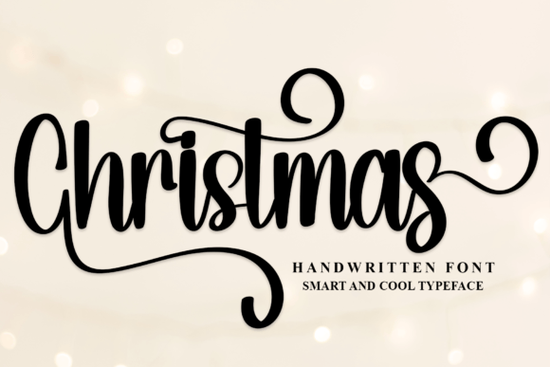
The Christmas Font is a stylish handwritten typeface with a classic calligraphy feel and a modern, contemporary touch. If you're working on holiday cards, seasonal branding, or festive printables, this font brings a warm, polished look to your projects without feeling overdone or outdated. It's a solid choice for designers, crafters, small business owners, and anyone creating holiday-themed designs.
What Should You Look for in a Christmas Script Font?
Not every holiday font works well in real designs. Some are too decorative to read clearly. Others feel stiff and look like they came from a default template. A good Christmas font needs to strike a balance it should feel festive but stay versatile enough for different types of projects.
This handwritten Christmas typeface was designed with that balance in mind. The letterforms flow naturally, inspired by timeless calligraphy traditions, but the overall style feels fresh and current. That makes it useful for everything from Etsy shop graphics and social media posts to printed holiday invitations and product packaging.
What Holiday Projects Can You Create With This Font?
Designers and crafters use Christmas-themed script fonts in many different ways. Here are some of the most popular applications:
- Holiday greeting cards works beautifully for both digital and printed cards
- Gift tags and labels adds a personal, handcrafted touch
- Social media graphics Instagram posts, Facebook banners, and Pinterest pins
- Print-on-demand products mugs, t-shirts, tote bags, and ornaments
- Website headers and blog graphics perfect for seasonal shop updates
- Party invitations and menus Christmas dinners, office parties, and family gatherings
The balanced letter spacing and varied character shapes keep your text readable even at smaller sizes, which matters a lot when you're designing product labels, gift tags, or anything that needs to be legible at a glance.
Does This Font Include Special Characters and Ligatures?
Ligatures are alternate letter combinations that make text look more natural and less mechanical. For a handwritten font, they're especially useful. They let connected letters flow smoothly into each other, giving your designs a more authentic, hand-lettered appearance. If you've ever noticed how certain letter pairs in calligraphy look different when they're connected, that's what ligatures do.
What Fonts Pair Well With a Christmas Script?
Script fonts usually look best when paired with a simpler, more readable typeface. This contrast keeps your designs from looking too busy and improves readability, especially for longer blocks of text.
- Splashed Font a bold, expressive choice for eye-catching headings. Discover this energetic typeface and how it works across different design projects.
A general rule of thumb: use your Christmas script for headings, titles, and key phrases. Then use a clean sans-serif or simple serif font for body text and supporting details.
Whether you're designing holiday cards for your family or building a seasonal product line for your shop, a well-crafted script font like this one makes a real difference. It saves time, gives your work a polished finish, and helps your holiday designs stand out.